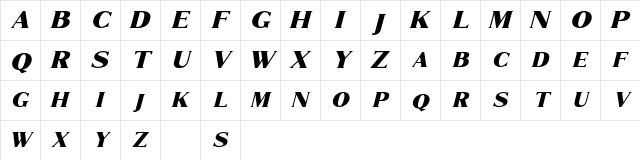
Marques Free Italic
| Foundry | Craft Supply Co |
Marques Free offers clean, dependable letterforms without strong stylistic allegiance, making it a practical choice for designers who need flexibility. Its italic angle brings a sense of urgency and motion to the letterforms.